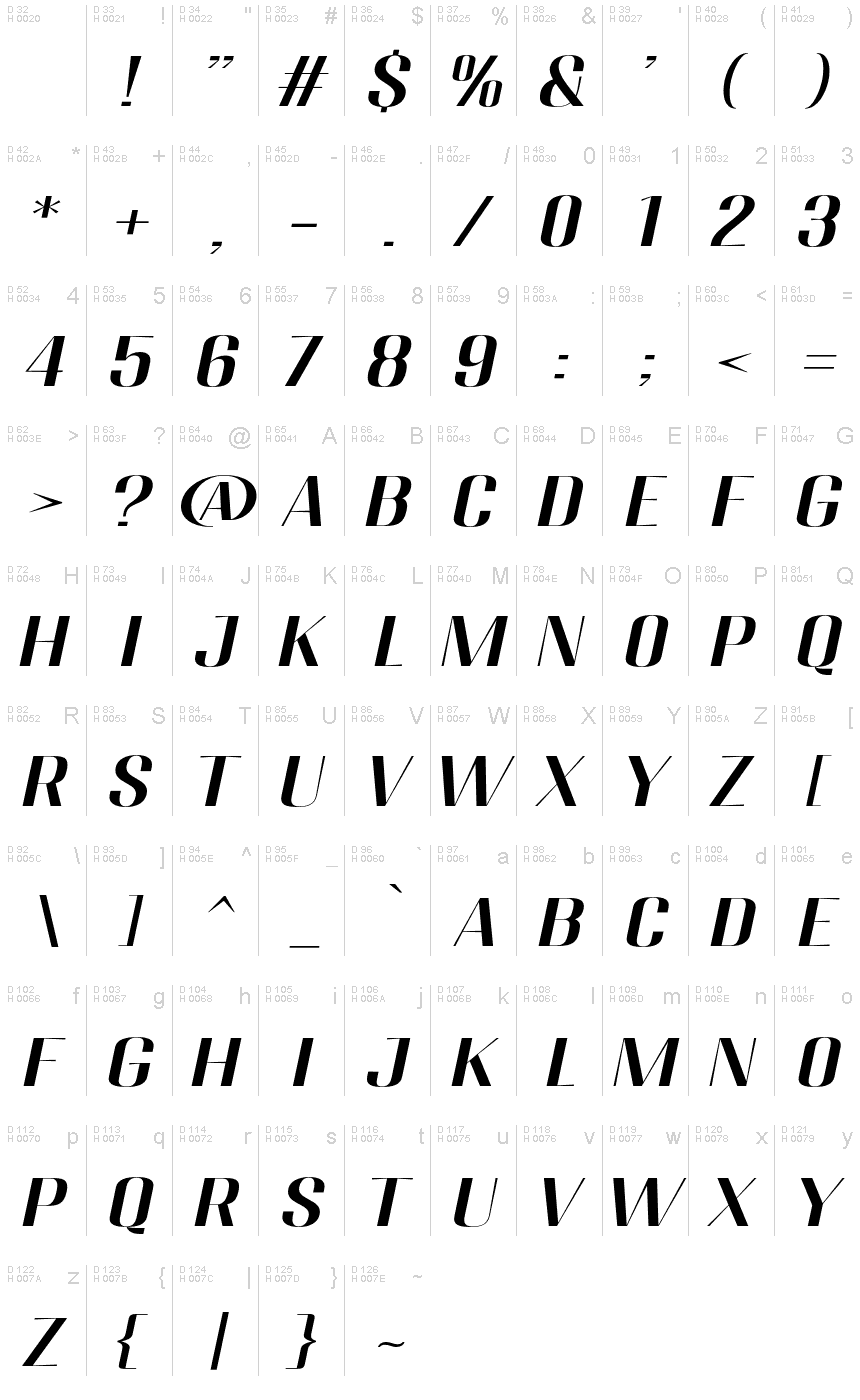
Migha-MediumExpandedSlant
Migha MediumExpanded Slant is a modern sans serif font designed by Seniors Studio. With its semi-bold weight and semi-condensed width, this font exudes confidence and professionalism. The slanted letters add a touch of playfulness to its sleek design, making it suitable for a variety of projects including branding materials, website design, and advertising campaigns. Use Migha MediumExpanded Slant to make a bold statement in your next project and watch as it elevates your brand to new heights.